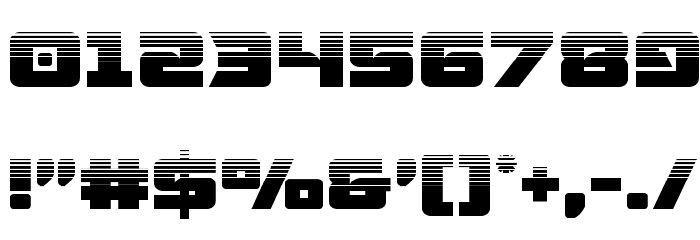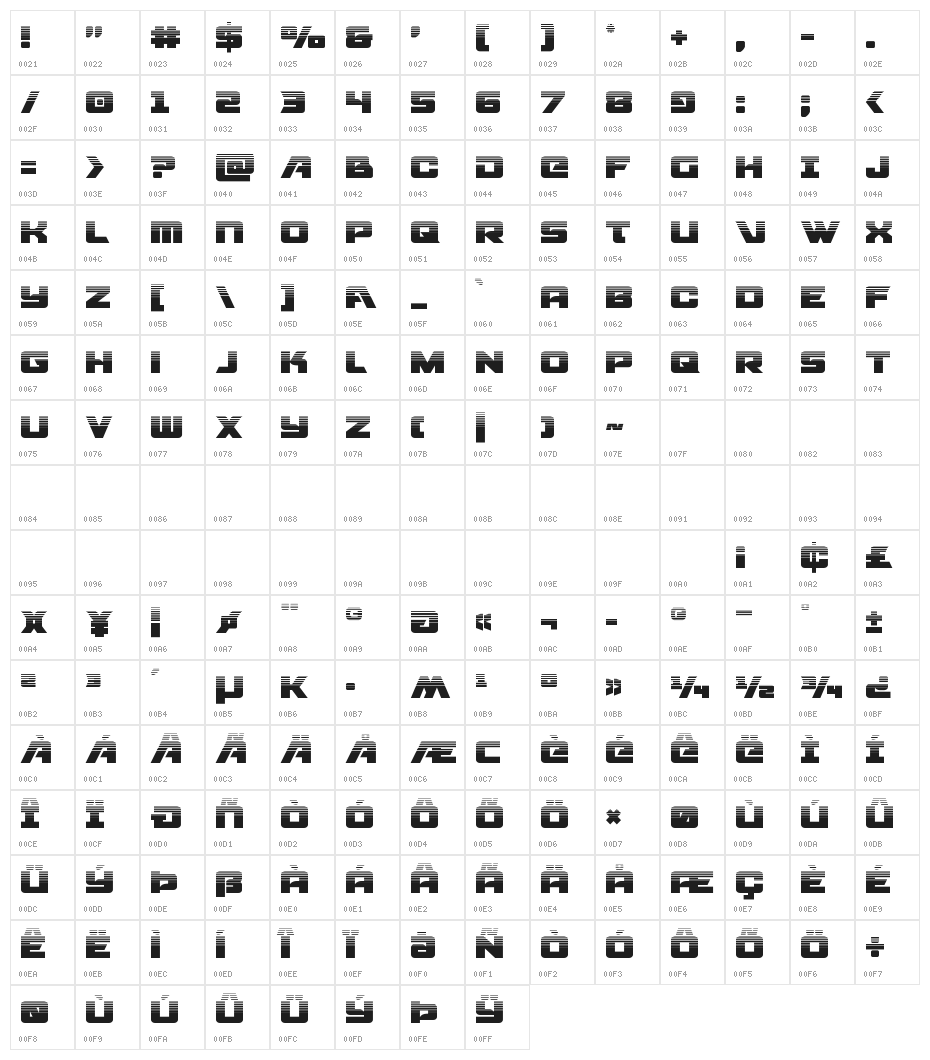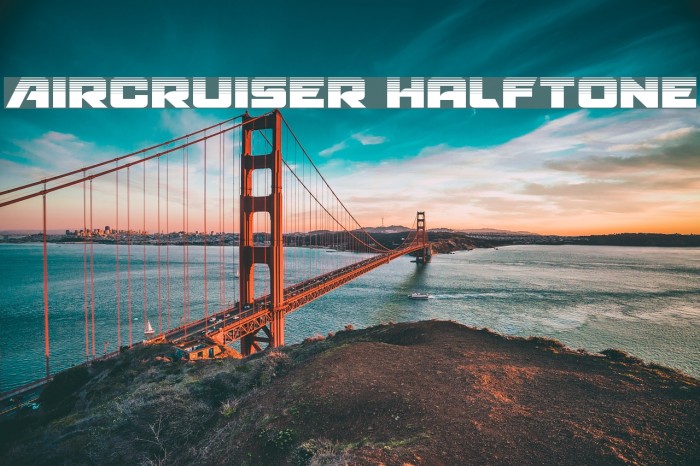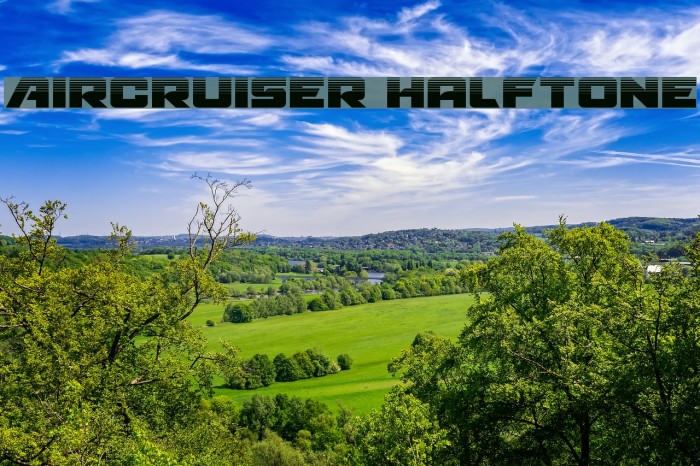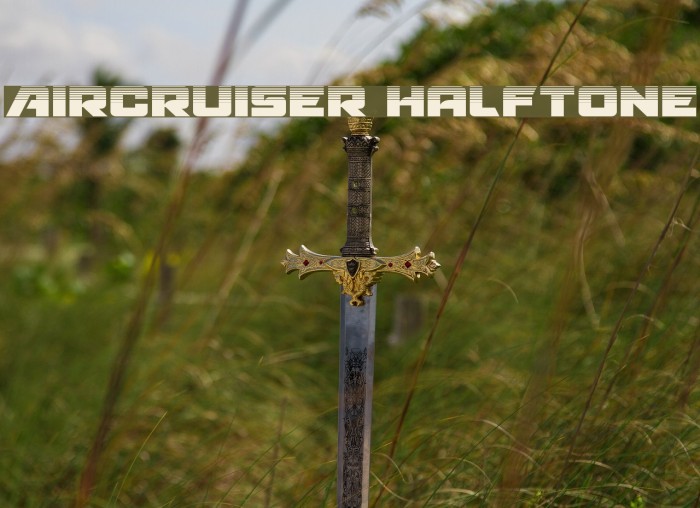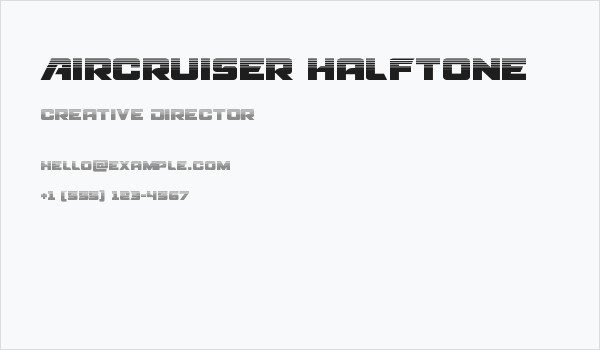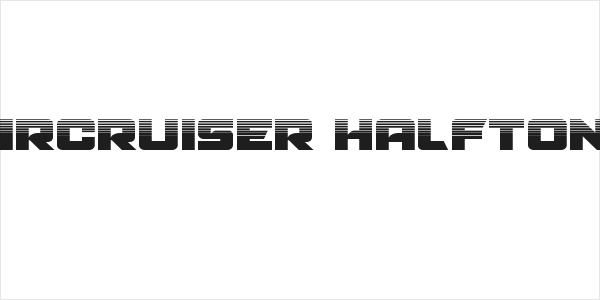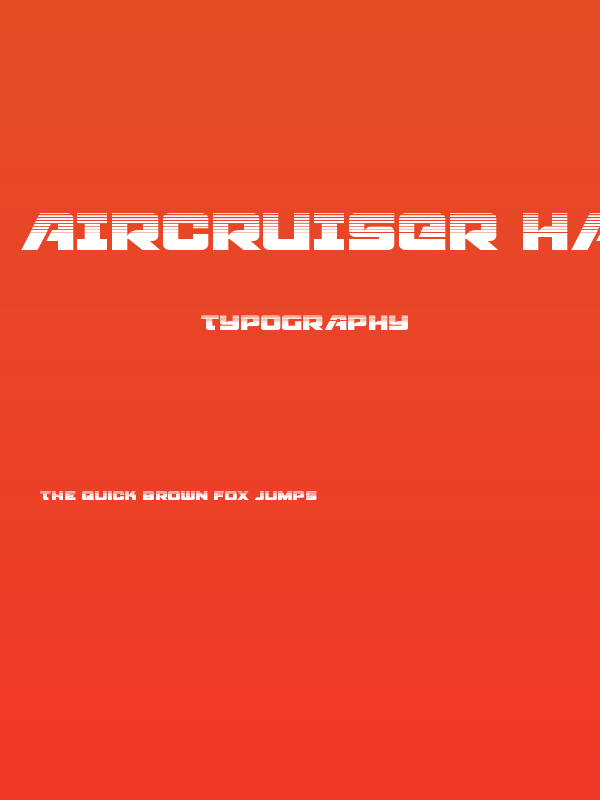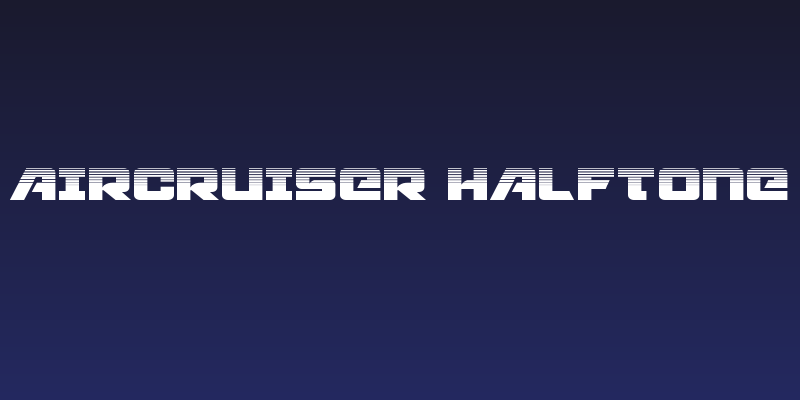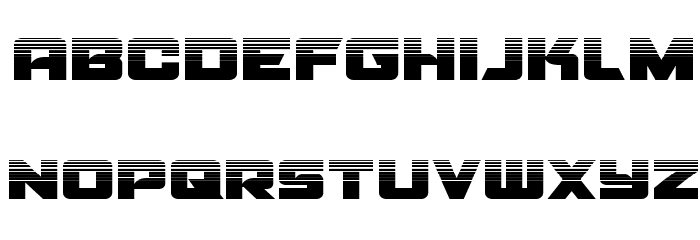
Aircruiser Halftone Font
Aircruiser Halftone Description
This font features a bold and futuristic design with a halftone effect that gives it a dynamic and energetic appearance. The characters are constructed with a combination of solid and striped patterns, creating a sense of movement and depth. The uppercase letters are particularly striking, with their wide and angular forms that convey a sense of strength and modernity. The numbers and special characters maintain this aesthetic, ensuring consistency across all elements. This font is ideal for projects that require a bold statement and a contemporary edge.
| Proposed Projects | Perfect for sci-fi themed designs, tech branding, video game titles, and modern advertising campaigns. |